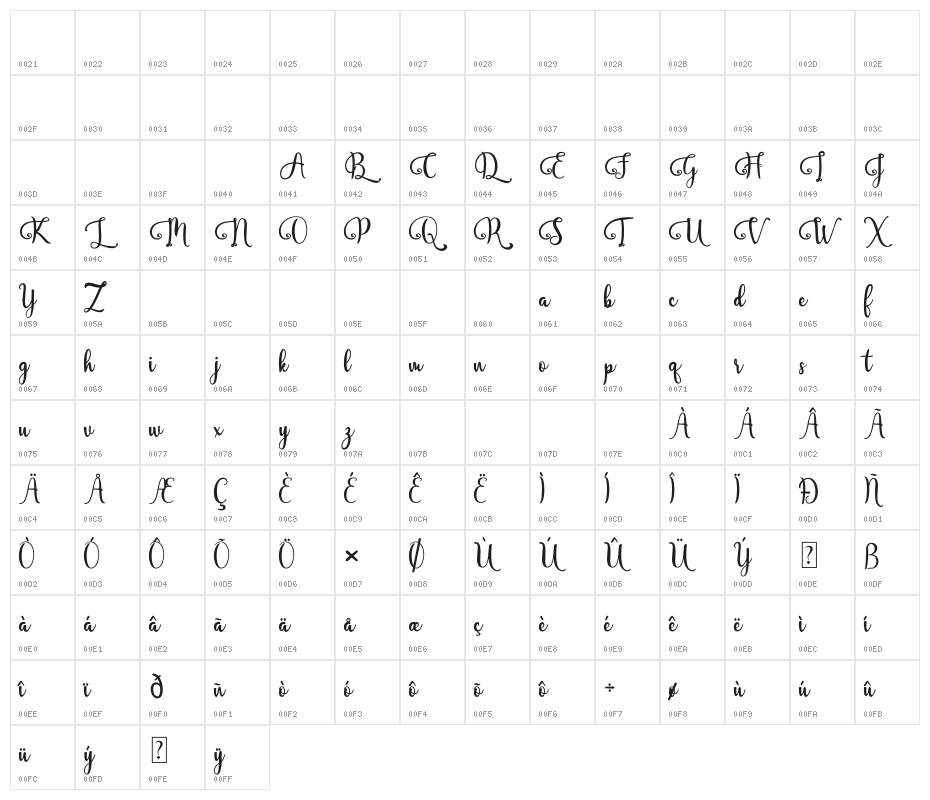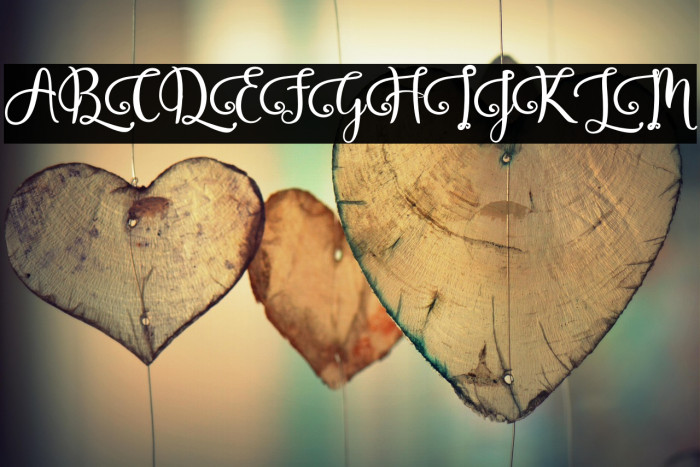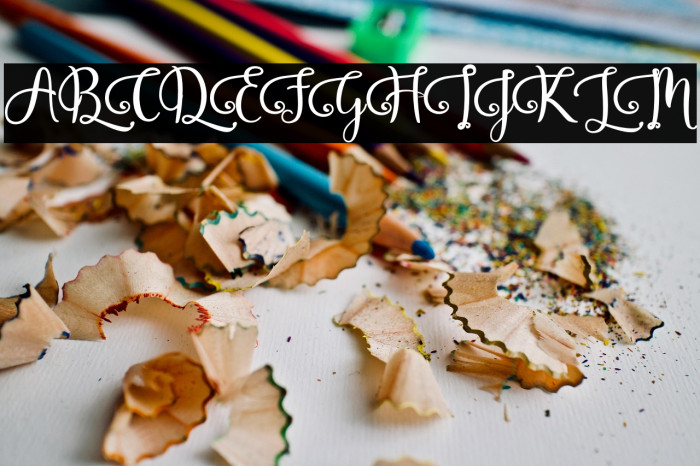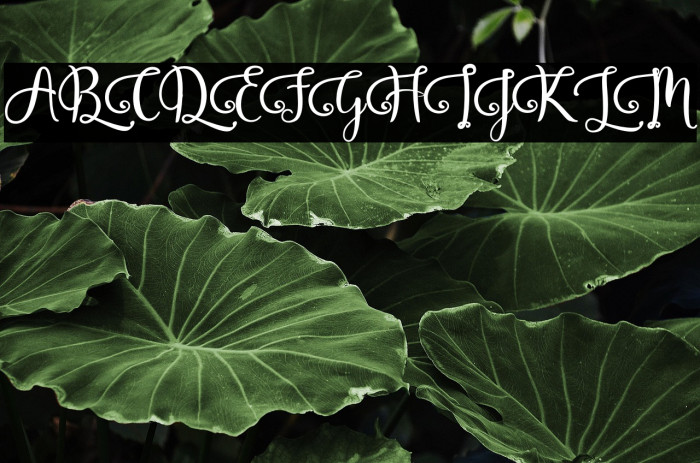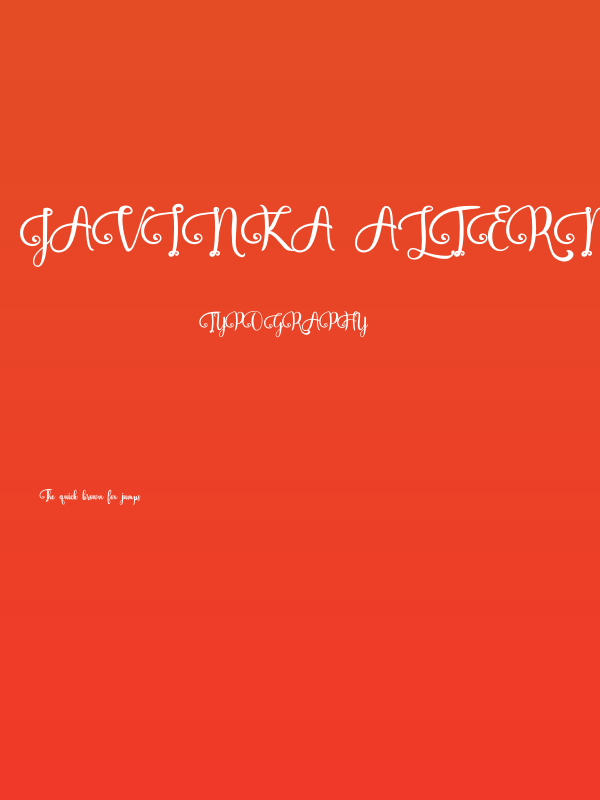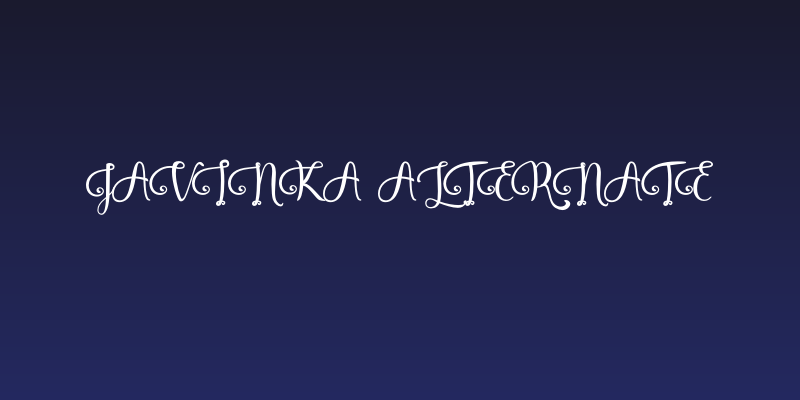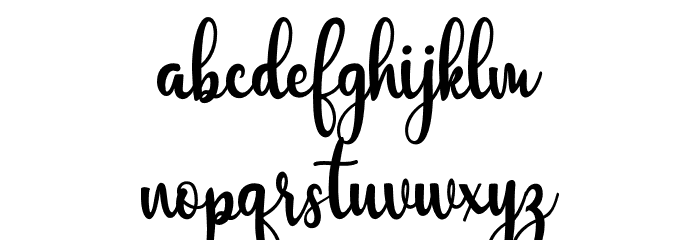
Javinka Alternate Font
Javinka Alternate Description
This font features an elegant and artistic script style with a playful and whimsical touch. The uppercase letters are adorned with decorative swirls and loops, giving them a unique and ornate appearance. The lowercase letters maintain a smooth and flowing cursive style, enhancing readability while retaining a sense of sophistication. The overall design is characterized by its fluidity and grace, making it suitable for creative and expressive projects. The font's distinct personality is further emphasized by its moderate contrast in stroke thickness, adding depth and visual interest.
| Proposed Projects | Ideal for wedding invitations, greeting cards, branding, and artistic projects. |